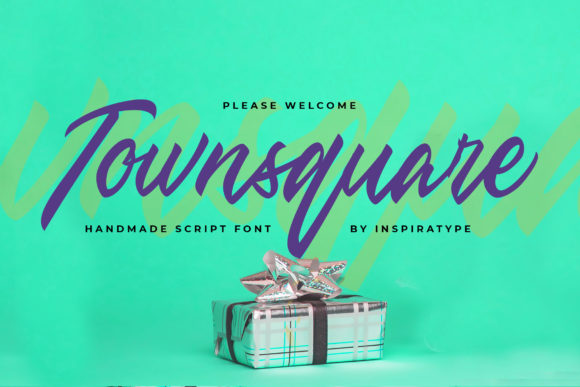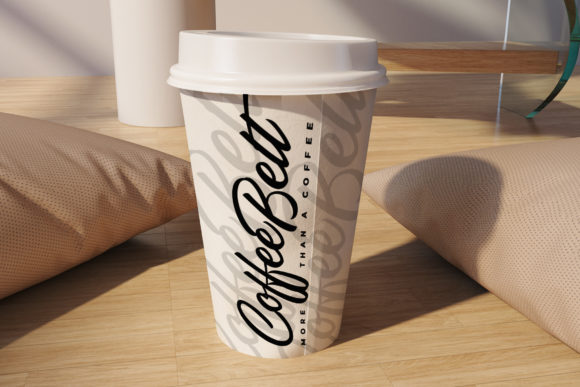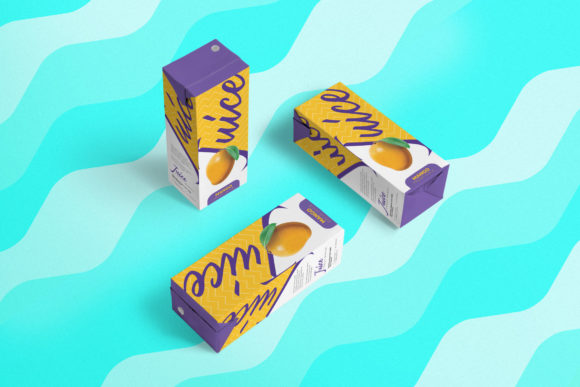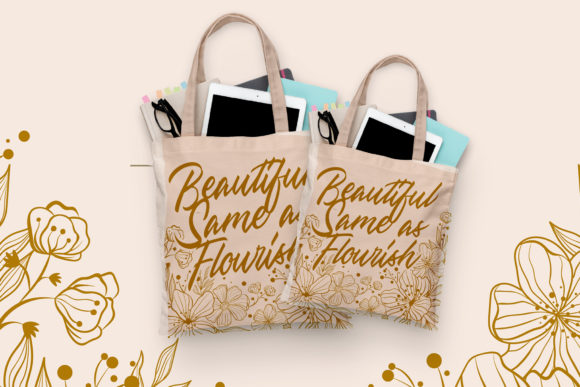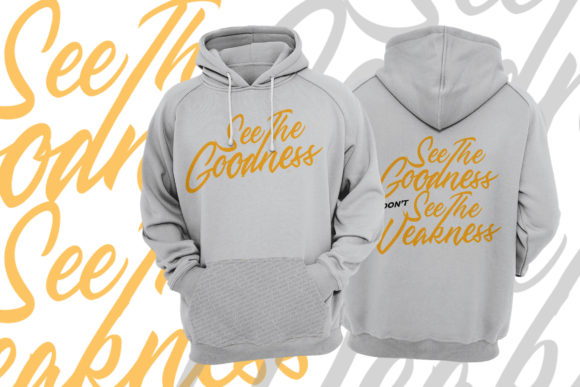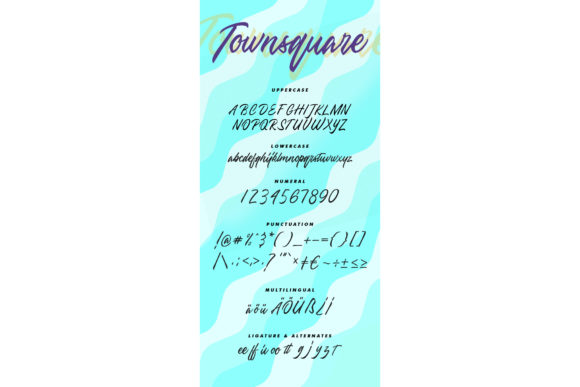
Townsquare Font
About Townsquare Font
Townsquare is a unique and flowing handwritten font. It has neat and well balanced characters and as a result, it fits a wide range of designs. Fall in love with its incredibly versatile style and use it to create gorgeous wedding invitations, beautiful stationary art, eye-catching social media posts, and much more!